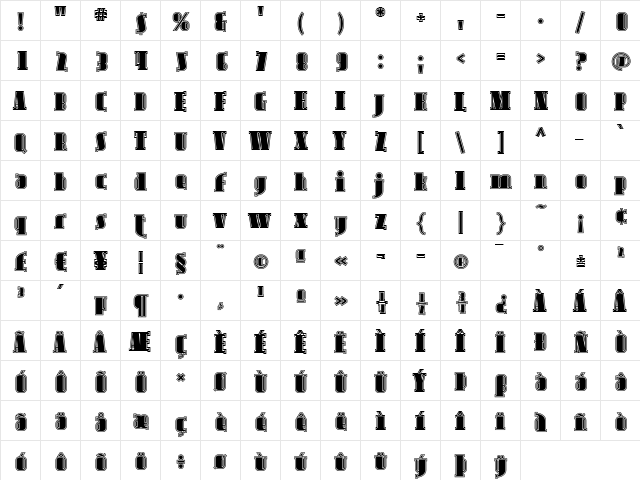
Avondale Inline Regular
| Designer | Derek Vogelpohl |
Design Context for Avondale Inline Typeface
Avondale Inline brings ornamental detail and strong personality to headlines and identities, where visual impact matters more than quiet functionality.
Font Pairing: Pair with a clean neutral sans-serif for body copy to let Avondale Inline's character lead without overwhelming the composition.
Pro Tip: Use Avondale Inline exclusively at display sizes — it was designed to be seen, not read at length. Let a neutral companion handle body copy.